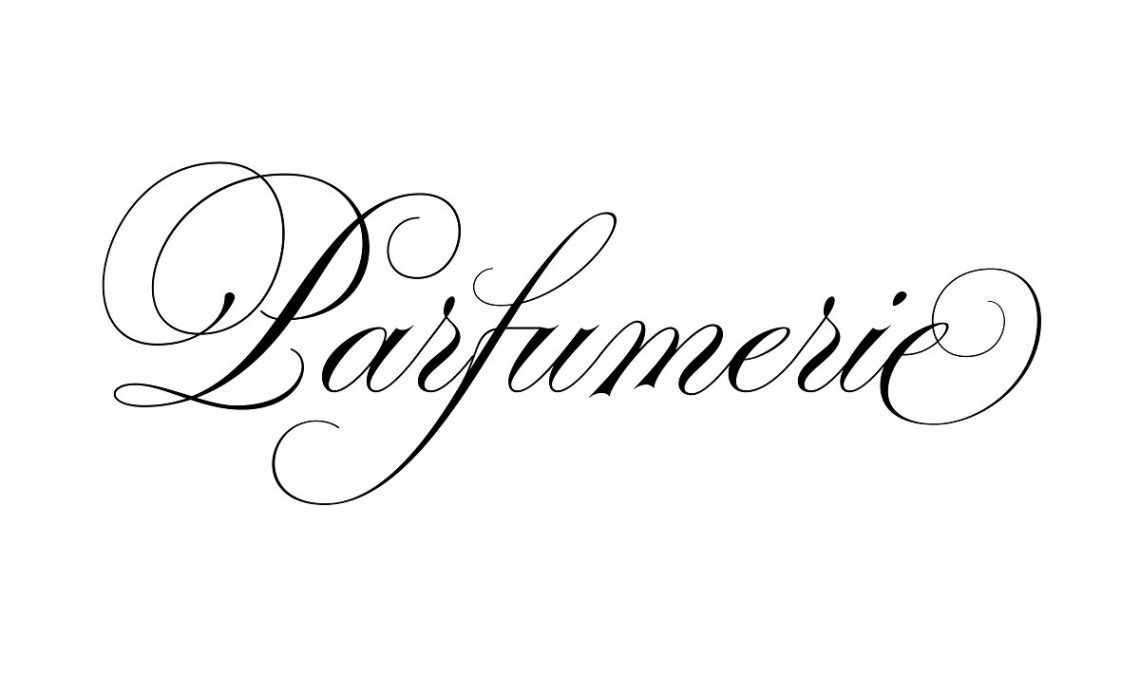
Looking for the perfect script font for your next project? Look no further than Parfumerie Script, created by the talented Sabrina Lopez. As one of the best fonts for magazine titles, Parfumerie Script is a sophisticated calligraphic font that will elevate any design to new levels of beauty and elegance.
What sets Parfumerie Script apart is its smooth curves, clean lines, and fine strokes. This font family offers a range of swashes and decorative alternates, including the unique Filete PorteƱo, an ornamental form native to Buenos Aires. With over 2500 glyphs, Parfumerie Script Pro gives users endless possibilities for customization.
Whether you're designing a magazine cover, wedding invitation, or logo, Parfumerie Script is the perfect choice. Its graceful and refined script form is sure to captivate any audience. And with its professional OpenType features, it's easy to incorporate into your next project.